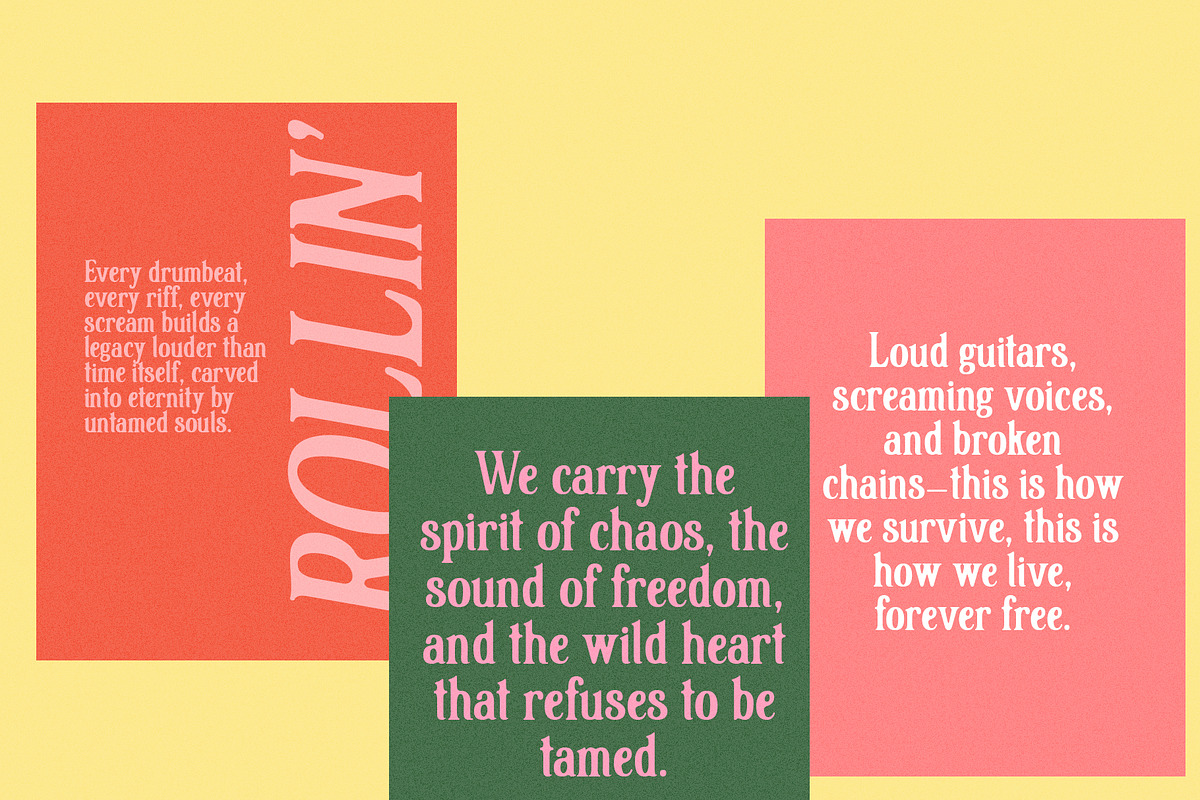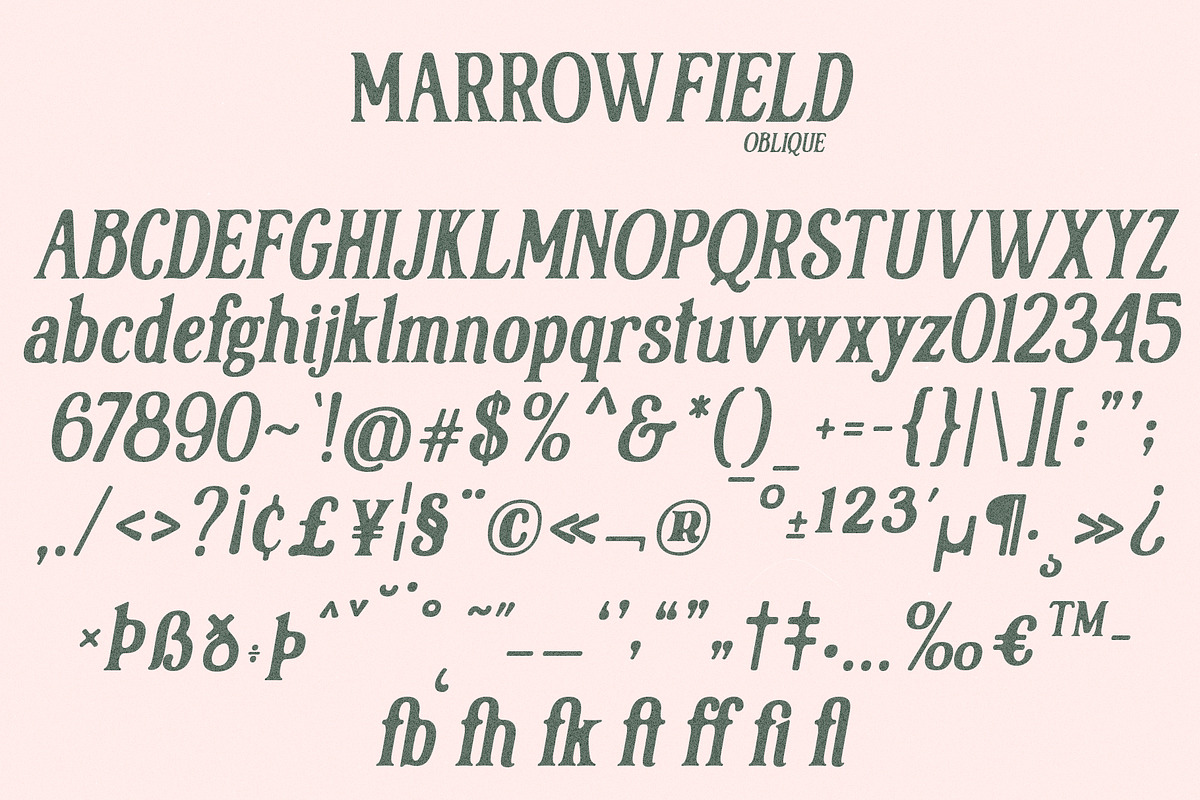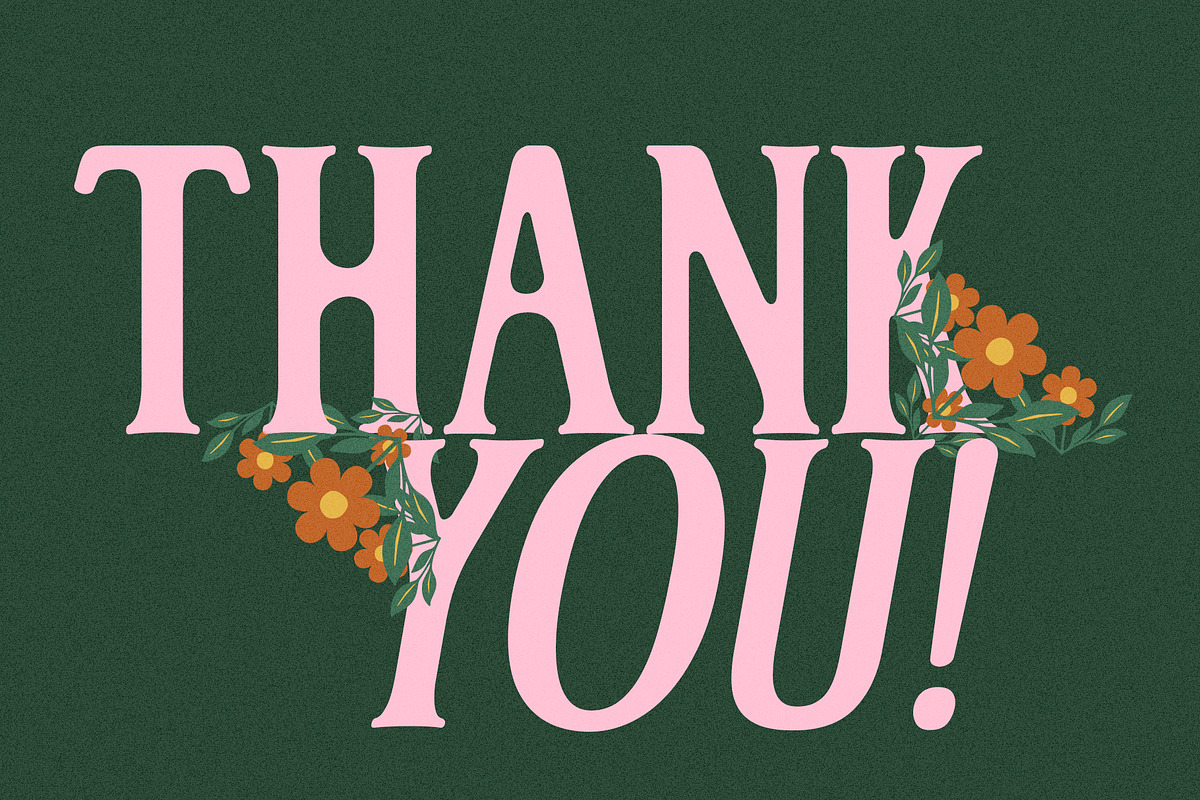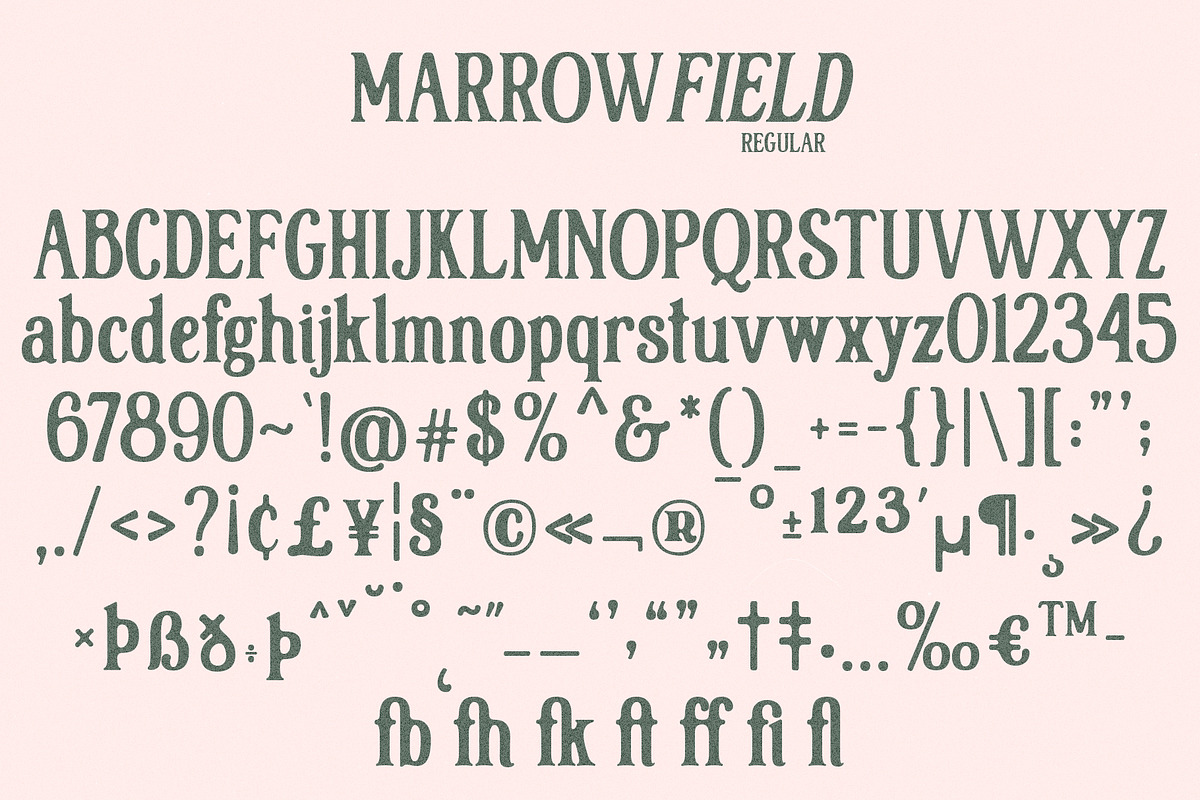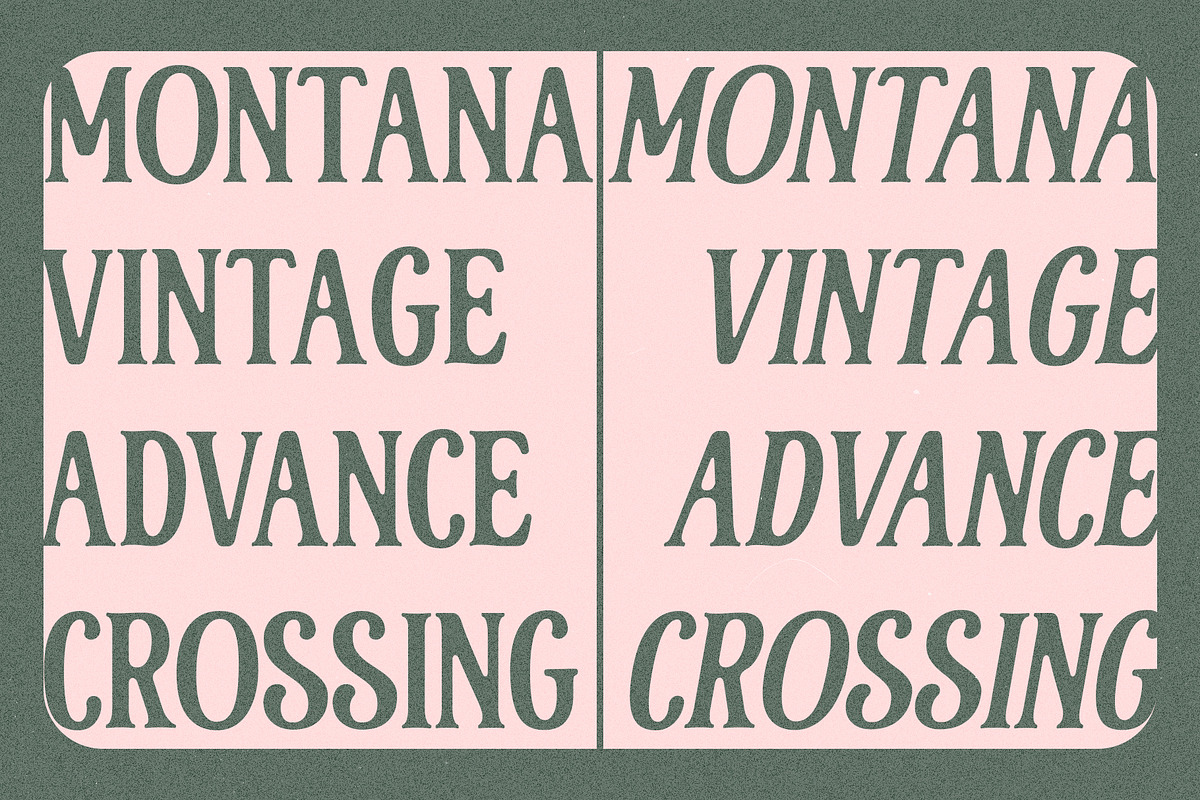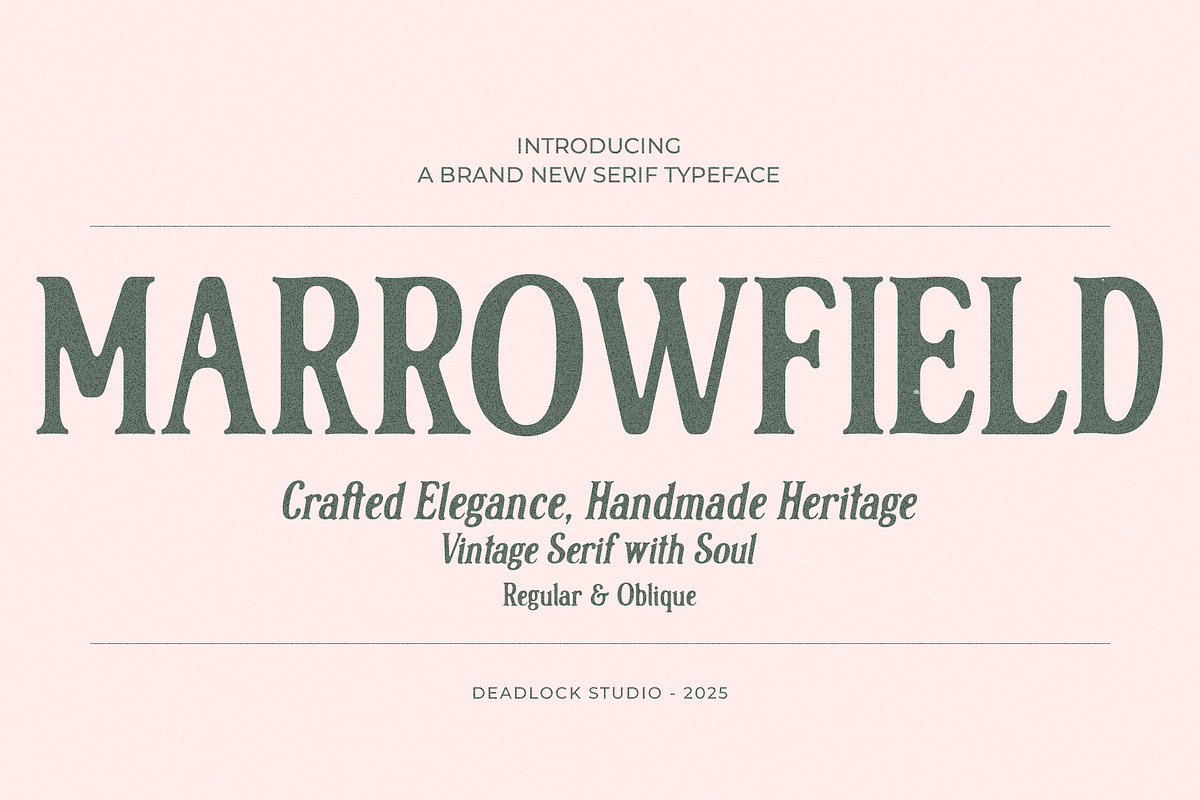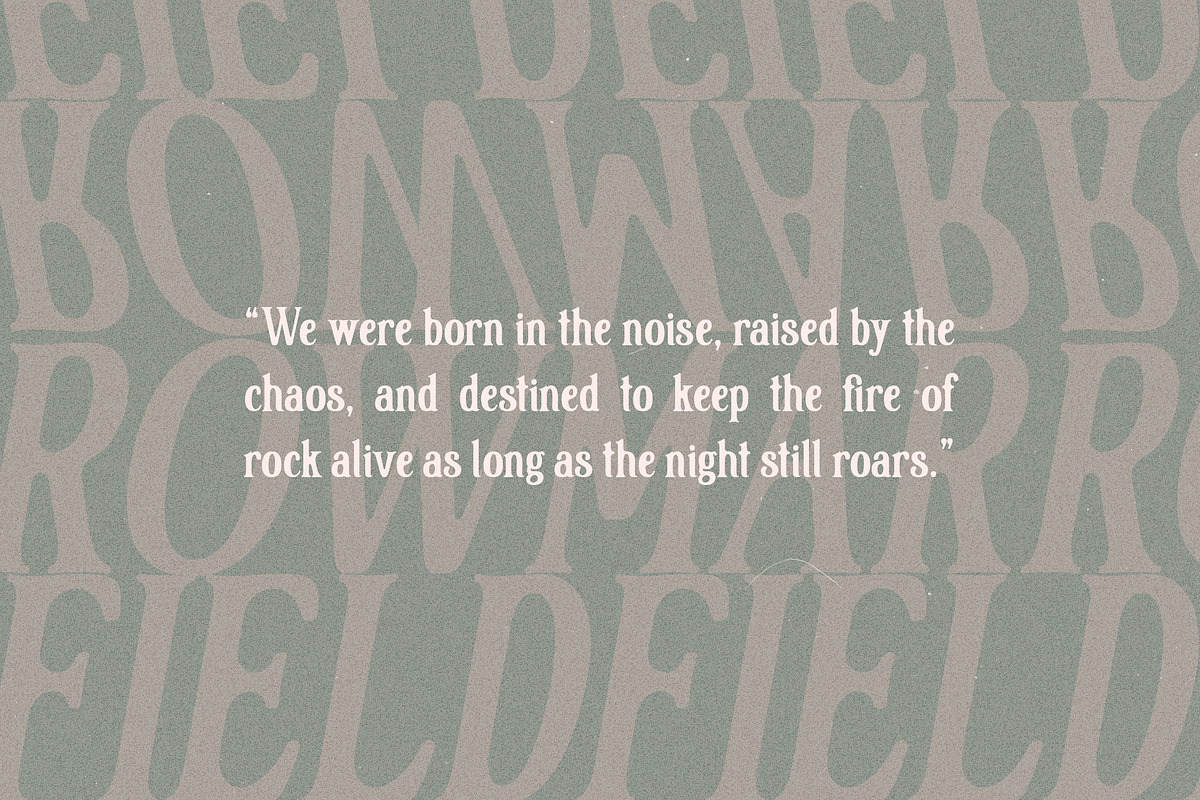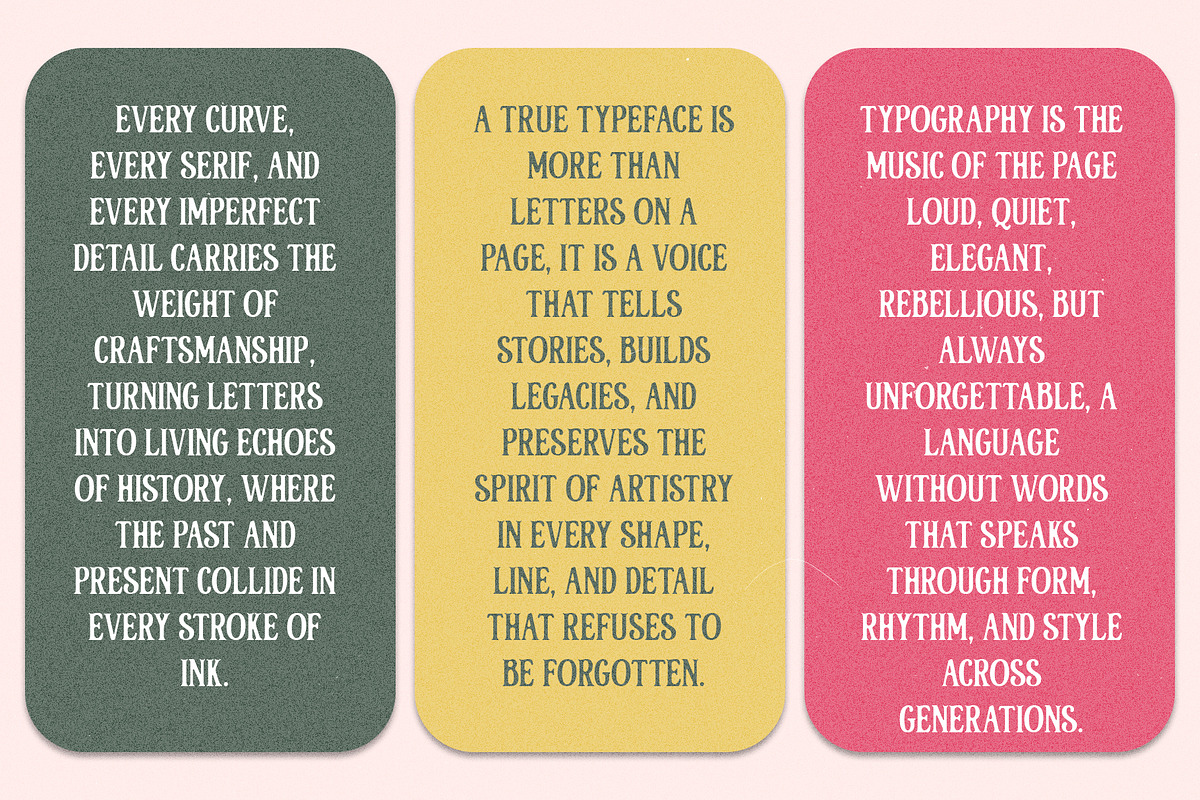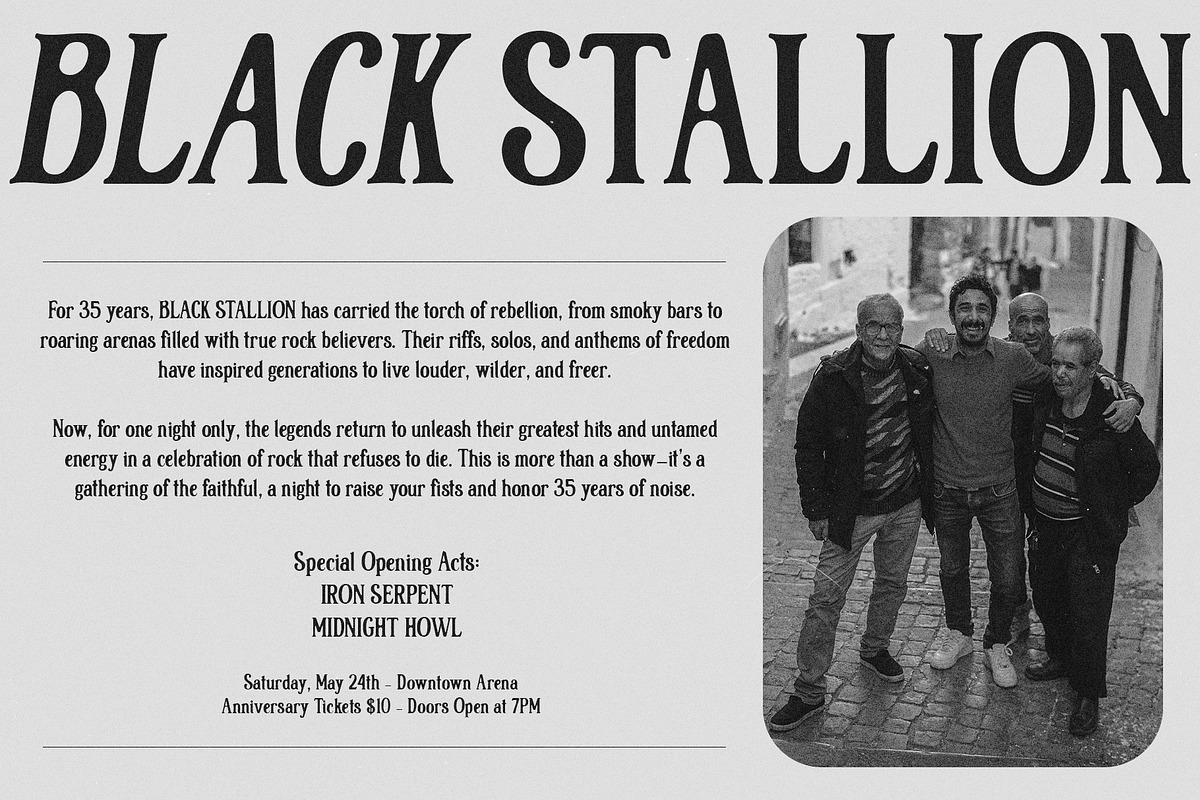
Marrowfield
Marrowfield is a hand-crafted serif typeface with a timeless vintage soul. Its bold strokes and organic curves evoke the spirit of old print posters, artisanal labels, and classic rock flyers. Designed with subtle imperfections, Marrowfield carries the warmth of hand lettering while staying versatile for both display and editorial use.
This typeface comes equipped with ligatures and an oblique style, giving you flexibility to create expressive designs with authentic character. Perfect for vintage branding, music posters, packaging, or any project that calls for a bold handcrafted voice.